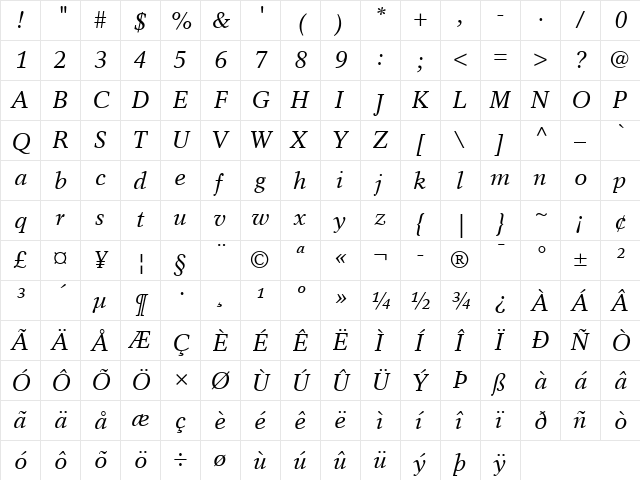
Rotation LT Roman Italic
Design Context for Rotation LT Roman Typeface
Rotation LT Roman is a composed and adaptable typeface that performs quietly and consistently across a wide range of design contexts. The slanted form adds forward momentum and visual energy. The delicate stroke weight brings airiness and refinement to layouts.
Pro Tip: Try Rotation LT Roman for annotation and caption copy alongside an upright companion — the contrast in angle creates a dynamic but ordered typographic system.